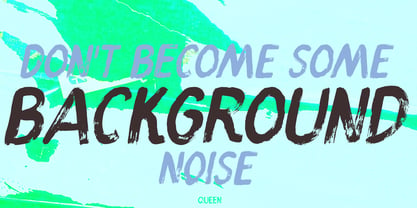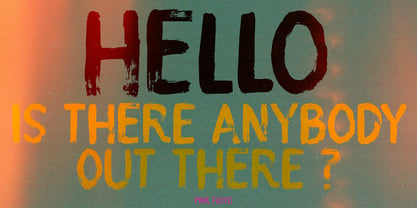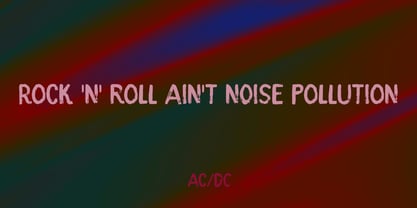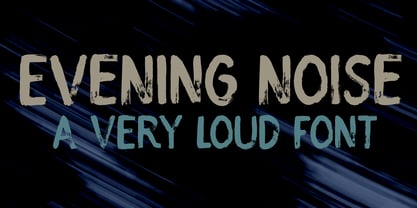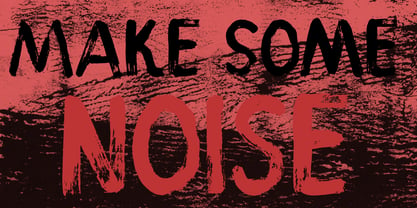
Evening Noise
A few weeks ago, I was in Japan, guiding a Dutch tour group. During a stay in a hotel, I noticed a sign that said: ‘NO evening noise!’ As I am always on the look for fun and cool font names, I wrote it down and used it on the font you see here!
Evening Noise is a noisy font: it is big, fat, eroded, grungy… Yet it is also very legible and - in its own way - kind of sophisticated! Evening Noise was made with gouache paint and a stiff brush - hence the detail.
It comes in a regular and an Italic style, both of which will look good on product packaging and book covers.
Designer: David Kerkhoff
Foundry: Hanoded